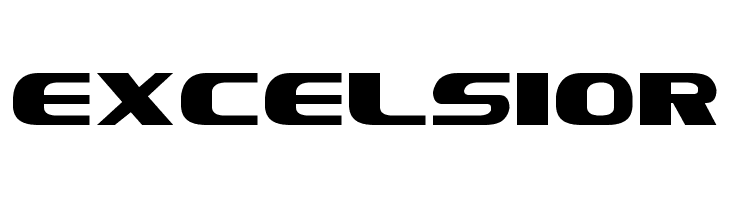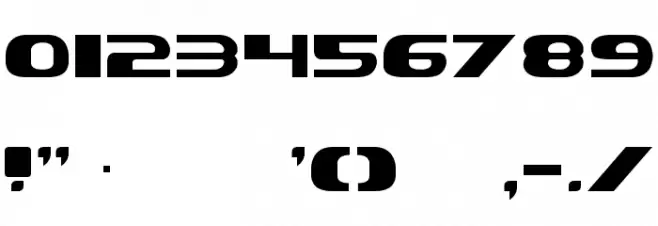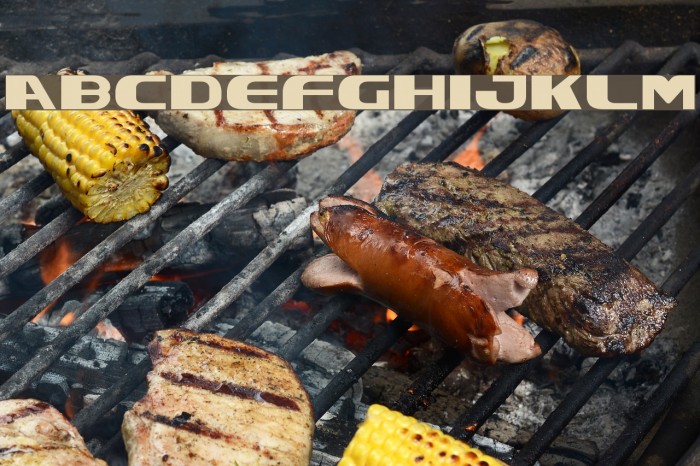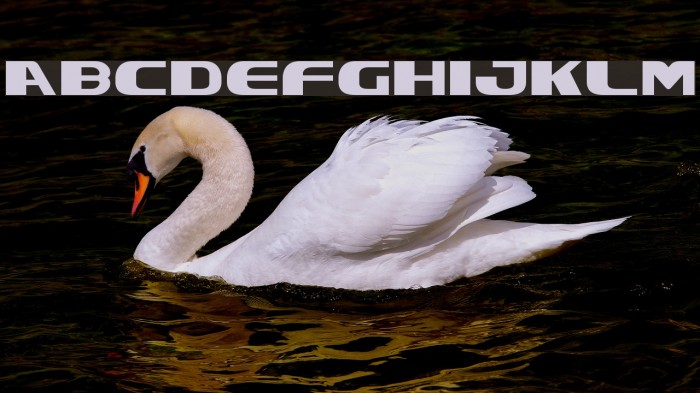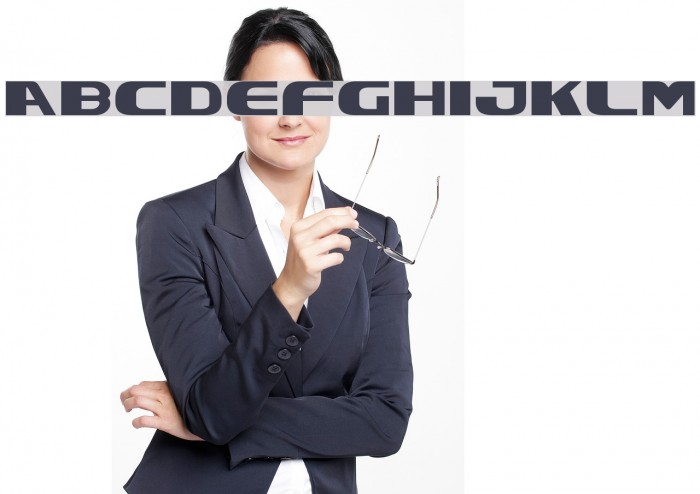
Excelsior Font
Excelsior Description
This font features a bold and futuristic design with strong geometric shapes and a distinct, modern aesthetic. The characters are wide and have a uniform thickness, creating a sense of stability and strength. The angular cuts and sharp edges give it a dynamic and edgy feel, making it suitable for attention-grabbing headlines and logos. The numbers and special characters maintain the same bold style, ensuring consistency across all text elements. Its unique style is perfect for projects that require a contemporary and impactful look.
A bold, futuristic font with geometric shapes and sharp edges from Futuristic fonts.
- Proposed Projects: Ideal for sci-fi themed designs, technology branding, video game titles, and modern advertising campaigns.
- Width: Expanded